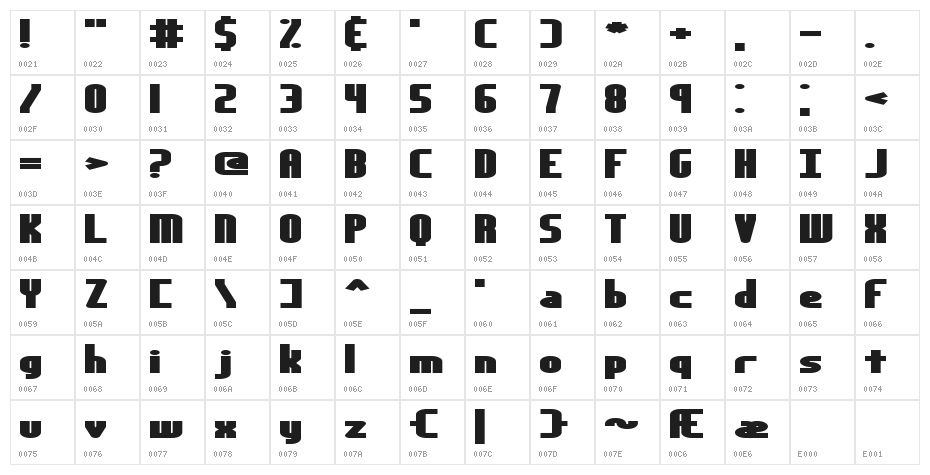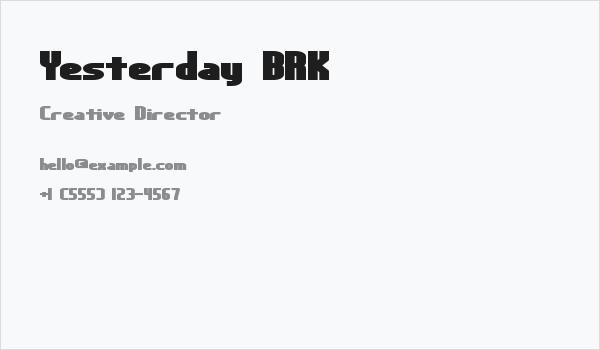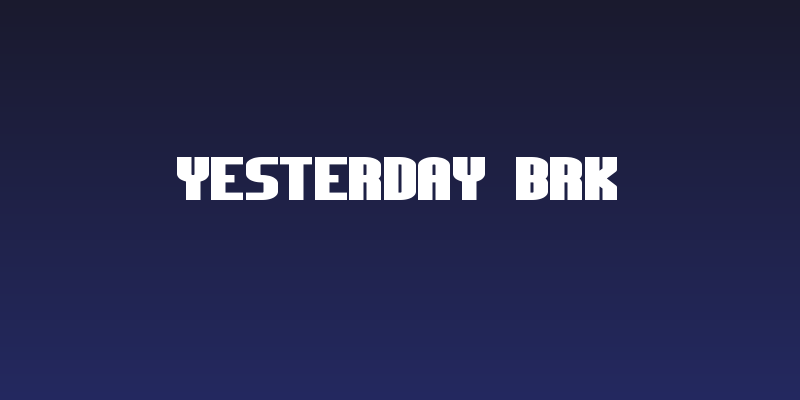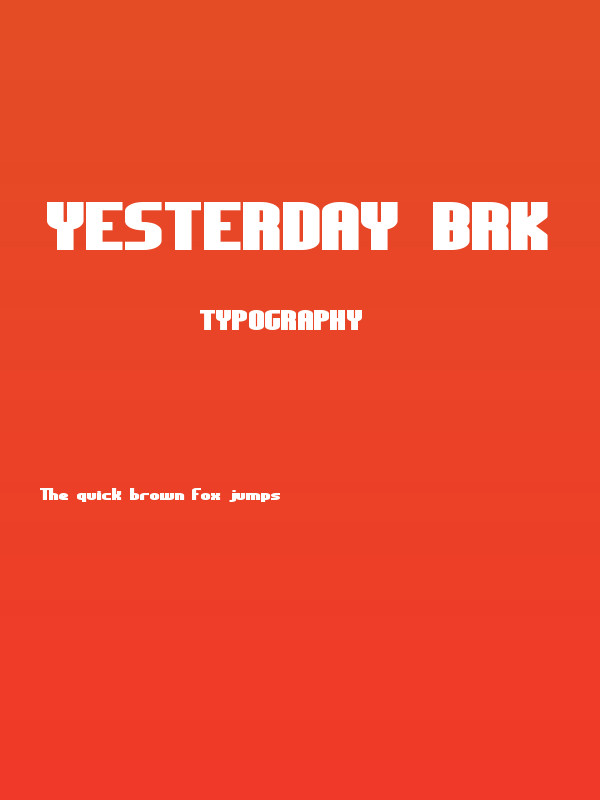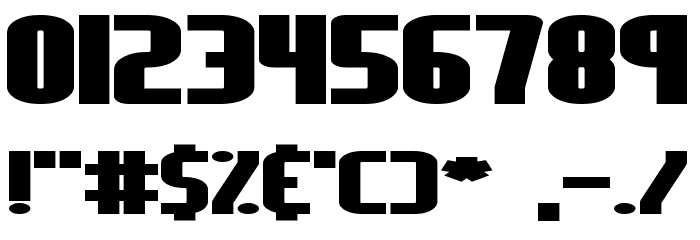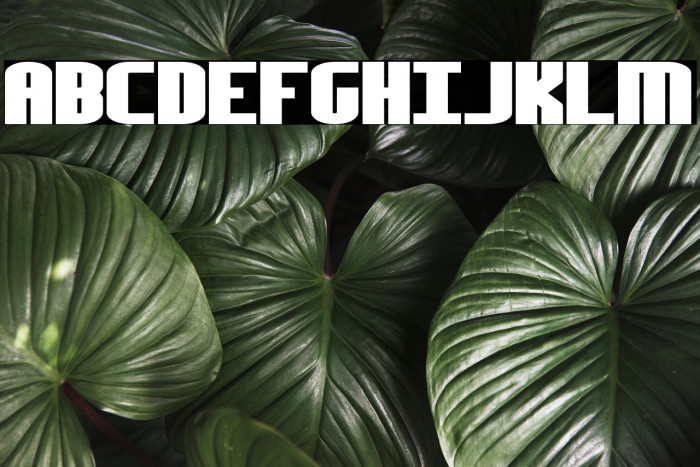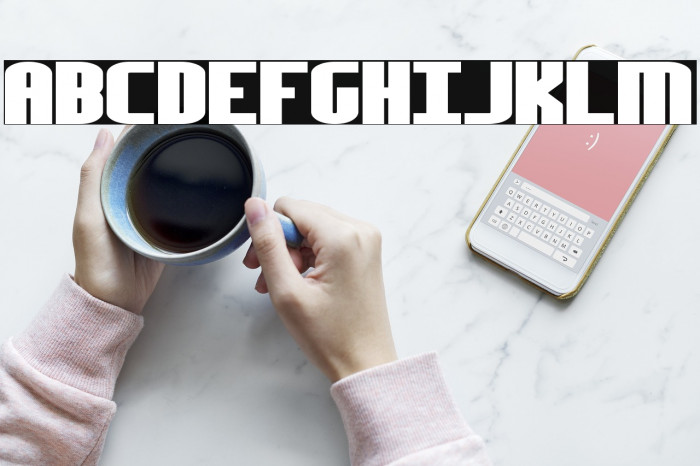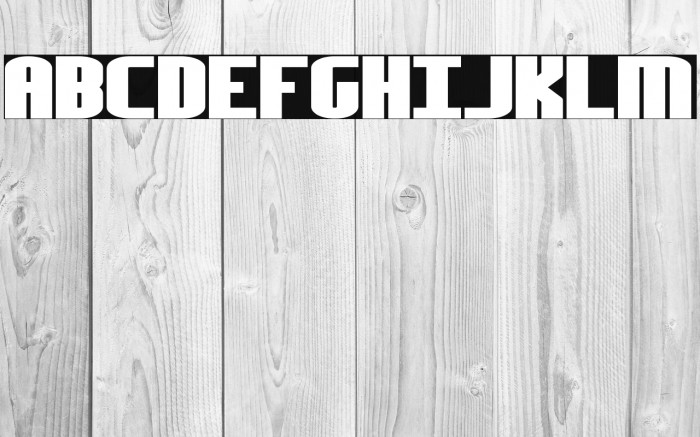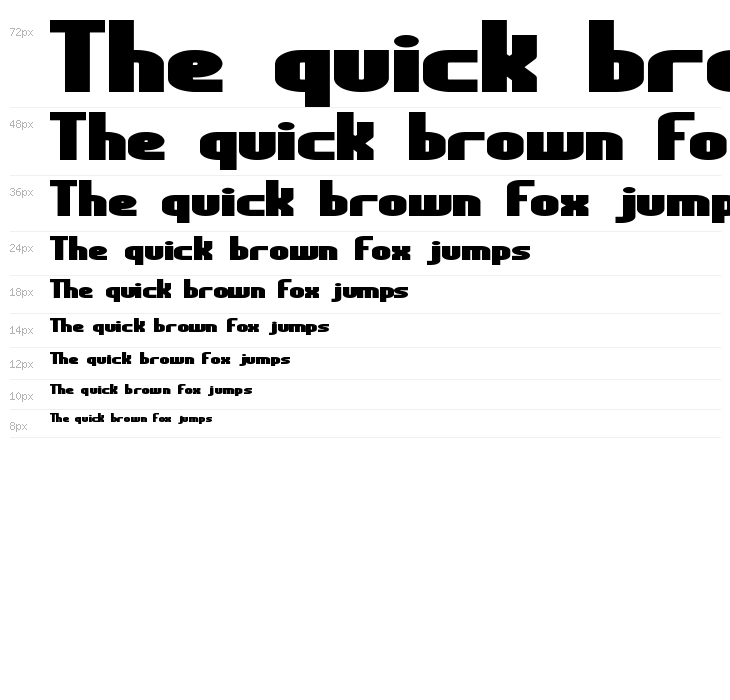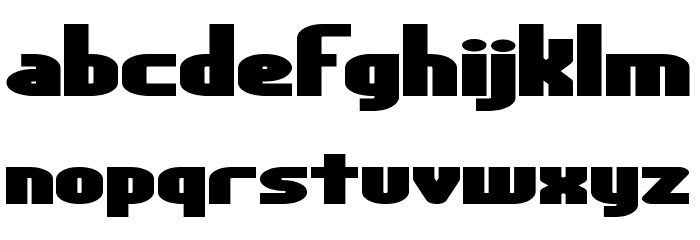
Yesterday BRK Font
Yesterday BRK Description
This font features a bold and striking design with a distinctly modern and geometric style. The characters are blocky and robust, with a strong presence that commands attention. The uppercase letters are uniform in height, while the lowercase letters maintain a consistent style, offering a cohesive look. The numerals are equally bold, ensuring readability and impact. Special characters are designed to match the overall aesthetic, making this font suitable for a variety of uses where a bold statement is needed.
| Proposed Projects | Ideal for posters, headlines, branding, and any project requiring a strong visual impact. |